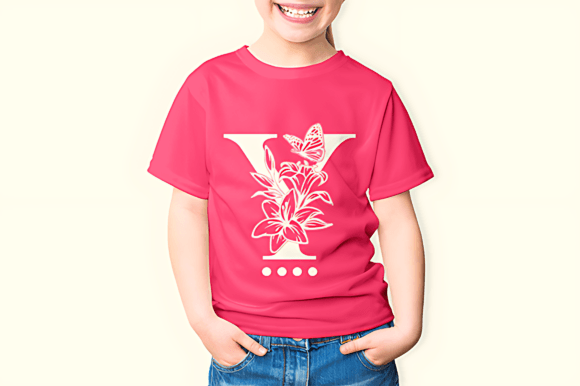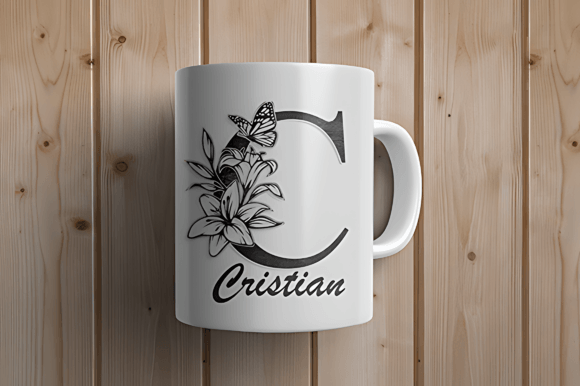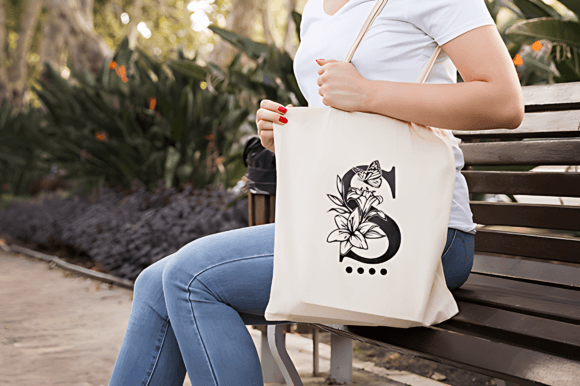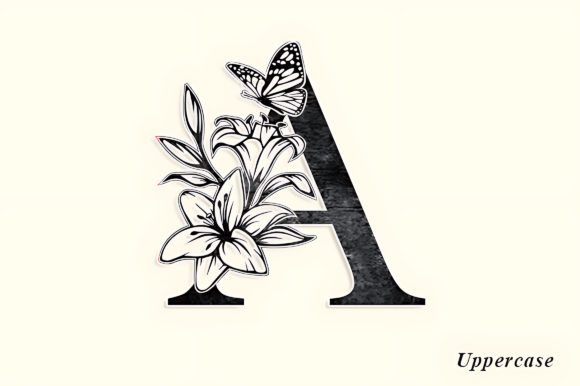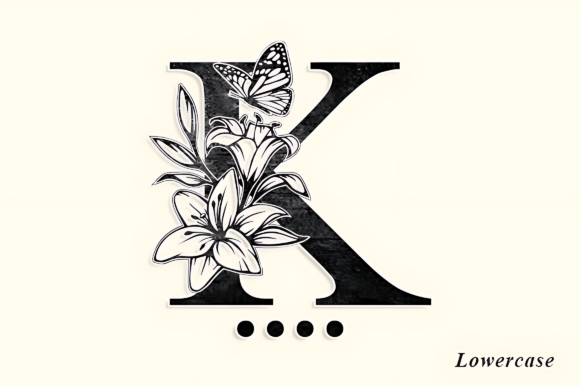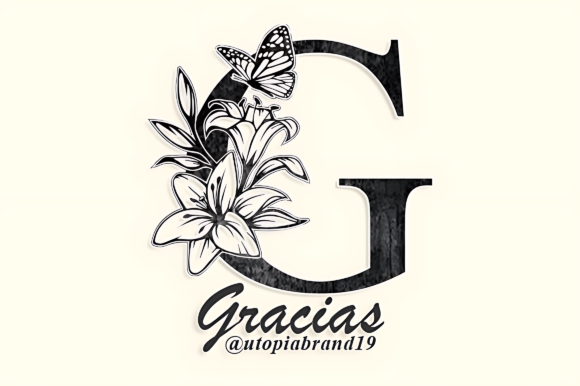
Introducing Betty Flowers Monogram Font: Elevate Your Designs with Elegance
Are you a designer or crafter looking for a font that exudes elegance and sophistication? Look no further than the Betty Flowers Monogram Font. This stunning decorative font is perfect for creating beautiful wedding invitations, stationary art, social media posts, and greeting cards that will leave a lasting impression.
What Makes Betty Flowers Monogram Font Special?
Betty Flowers Monogram Font is an elegant decorative font that features lovely ornaments, giving it an authentic feel that’s hard to resist. Its unique and intricate design makes it perfect for adding a touch of sophistication to any project. Whether you’re a professional designer or a DIY crafter, this font is sure to inspire your creativity and take your designs to the next level.
Perfect for Wedding Invitations and Stationary Art
Wedding invitations and stationary art are a great way to showcase the beauty of Betty Flowers Monogram Font. The font’s elegant and sophisticated design makes it perfect for creating gorgeous wedding invitations that will set the tone for the big day. Additionally, its intricate ornaments and authentic feel make it ideal for creating beautiful stationary art that will add a touch of elegance to any room.
Eye-Catching Social Media Posts and Greeting Cards
But Betty Flowers Monogram Font is not just limited to print designs. It’s also perfect for creating eye-catching social media posts and greeting cards that will grab the attention of your audience. Whether you’re a business looking to elevate your social media presence or an individual looking to send a special message to loved ones, this font is sure to make your designs stand out.
Key Features of Betty Flowers Monogram Font
- Elegant Decorative Font: Betty Flowers Monogram Font is a beautifully designed decorative font that features lovely ornaments and an authentic feel.
- Perfect for Wedding Invitations: The font’s elegant and sophisticated design makes it perfect for creating gorgeous wedding invitations.
- Great for Stationary Art: The font’s intricate ornaments and authentic feel make it ideal for creating beautiful stationary art.
- Eye-Catching Social Media Posts: The font’s unique and intricate design makes it perfect for creating eye-catching social media posts.
- Cute Greeting Cards: The font’s elegant and sophisticated design makes it perfect for creating cute greeting cards.
Tips for Using Betty Flowers Monogram Font
Here are a few tips for using Betty Flowers Monogram Font to get the most out of your designs:
- Experiment with Different Sizes: Try using the font in different sizes to see how it looks in various contexts.
- Pair with Other Fonts: Experiment with pairing Betty Flowers Monogram Font with other fonts to create a unique and interesting design.
- Use on Different Backgrounds: Try using the font on different backgrounds to see how it looks in various settings.
In conclusion, Betty Flowers Monogram Font is a beautiful and elegant decorative font that’s perfect for designers and crafters looking to elevate their designs. Its unique and intricate design makes it perfect for creating gorgeous wedding invitations, beautiful stationary art, eye-catching social media posts, and cute greeting cards. With its authentic feel and lovely ornaments, this font is sure to inspire your creativity and take your designs to the next level.